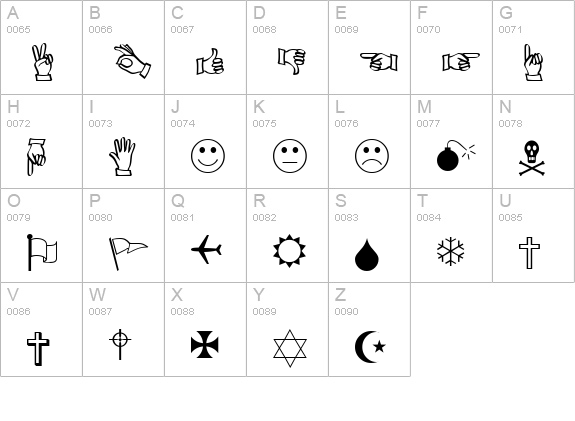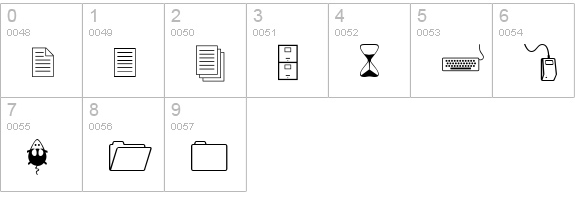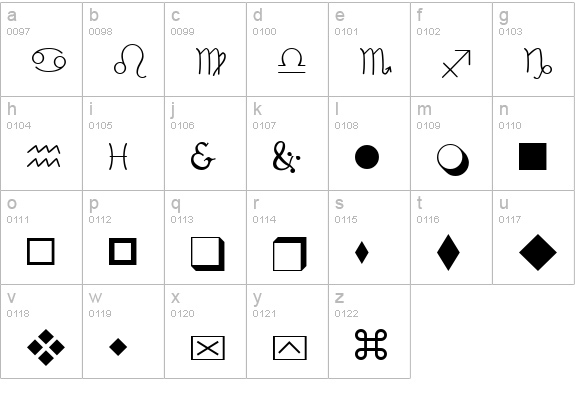
XIngyDings Font Details
Introducing XIngyDings font - a whimsical and playful typeface that will add a touch of charm to your designs. This unique font features intricate doodles and decorative elements that will make your projects stand out. Perfect for invitations, posters, and other creative projects, XIngyDings font is sure to captivate your audience with its quirky and fun style. Not only is XIngyDings font visually appealing, but it is also incredibly versatile. Whether you're creating a birthday card or a social media post, this font will add a delightful touch to your designs. And the best part? XIngyDings font is completely free to download at FontsMarket.com. Yes, you read that right - you can access this amazing font at no cost, making it the perfect addition to your font collection. So why wait? Download XIngyDings font today and let your creativity soar with this charming and free typeface!